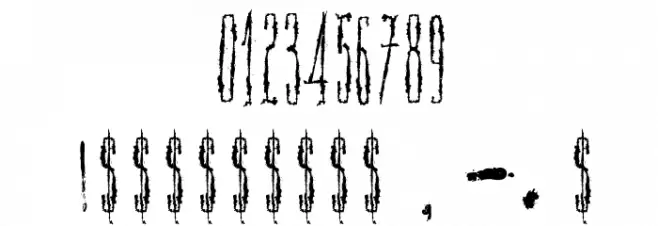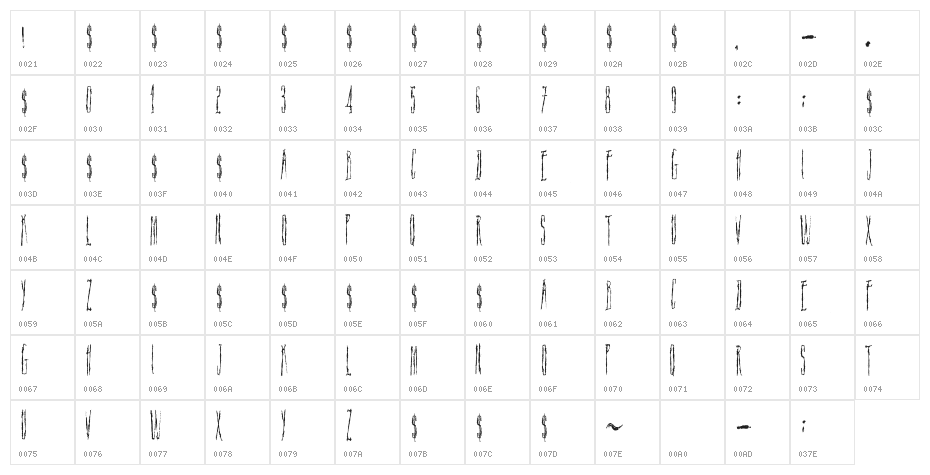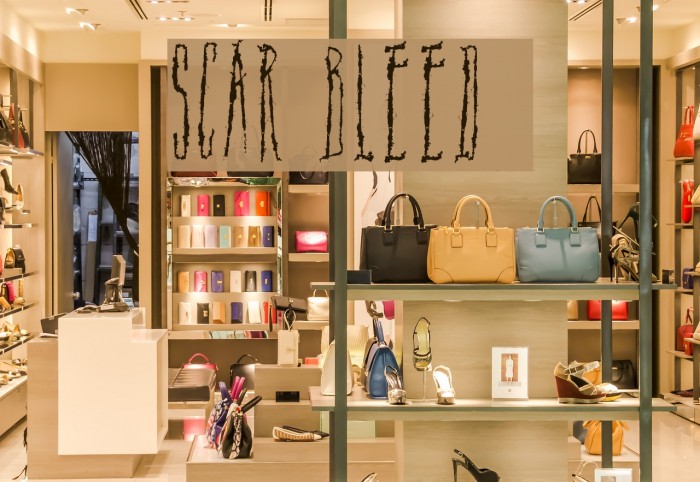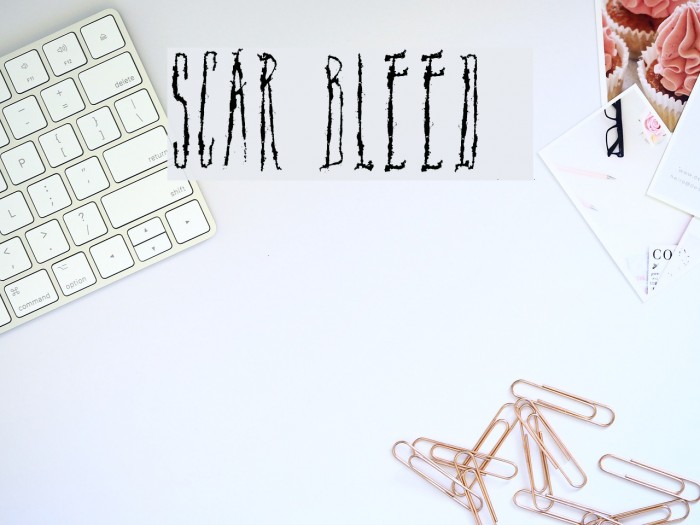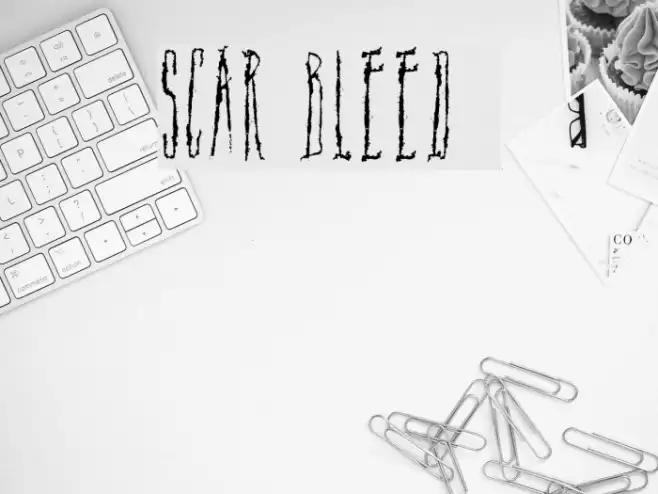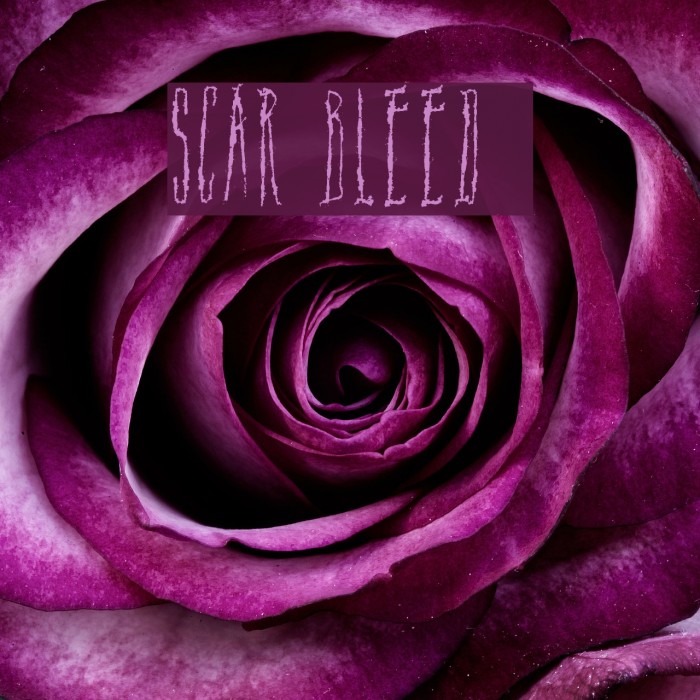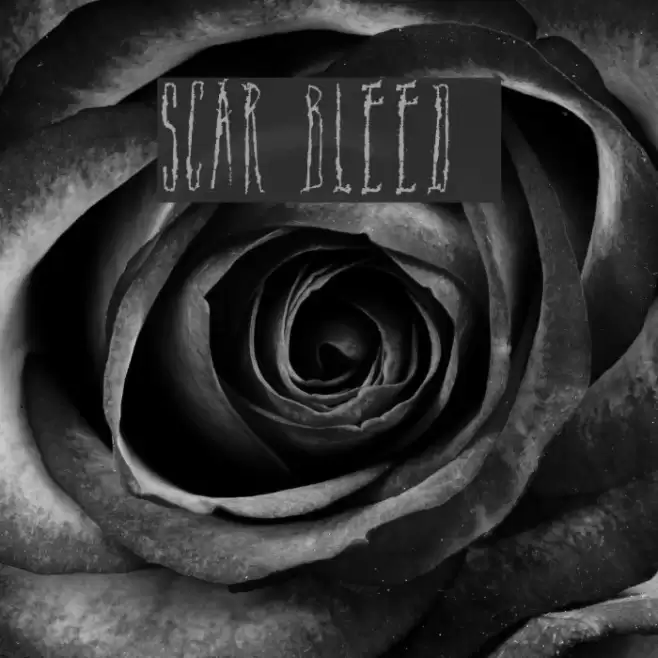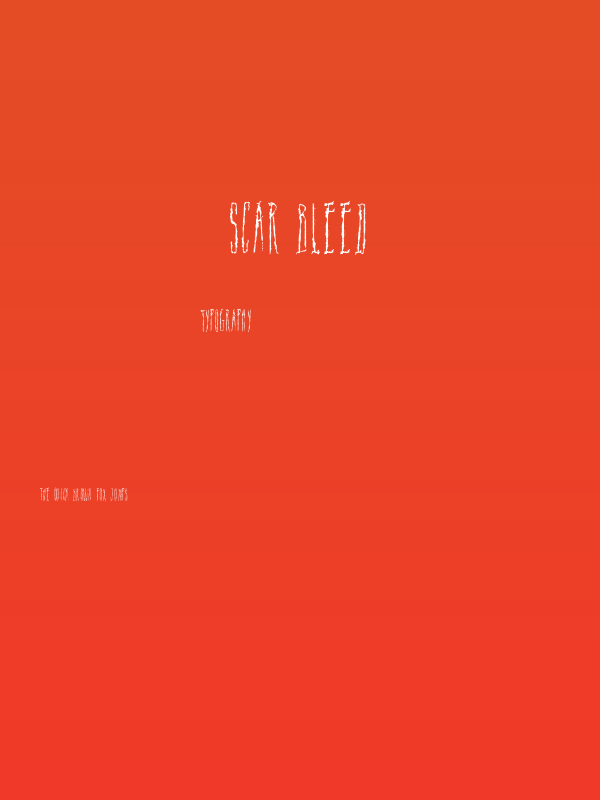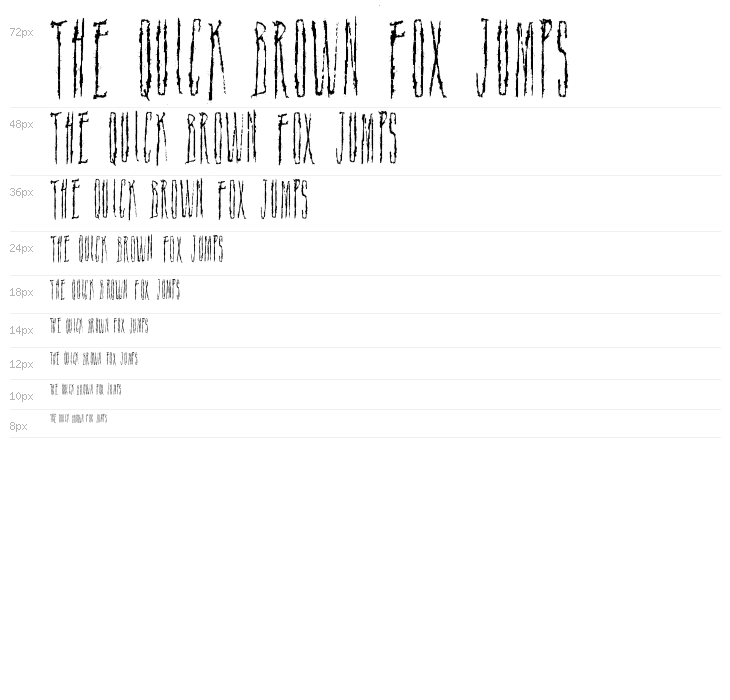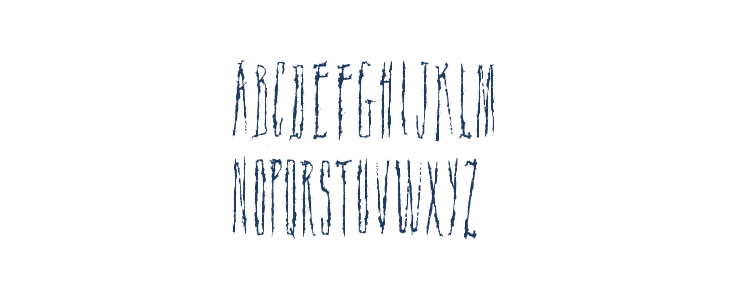
Scar Bleed Font
Scar Bleed Description
This font exhibits a distressed and edgy appearance, characterized by its elongated and jagged letterforms. The strokes are uneven, giving a sense of rawness and intensity, reminiscent of scratches or scars. The uppercase and lowercase letters maintain a consistent style, with the uppercase being slightly taller and more pronounced. Numbers and special characters follow the same rugged aesthetic, ensuring a cohesive look across all elements. The font's unique style makes it stand out, ideal for projects that require a bold and unconventional look.
Proposed ProjectsIdeal for horror-themed designs, album covers, posters, or any project needing a gritty, intense aesthetic.